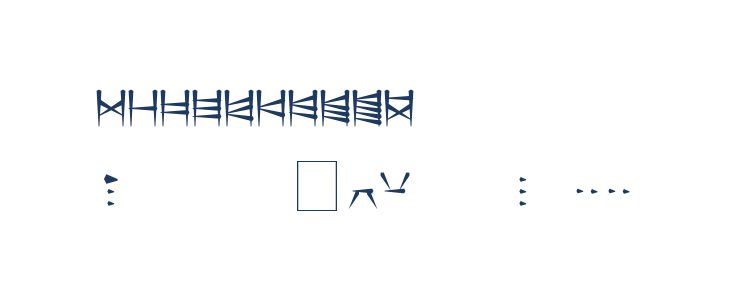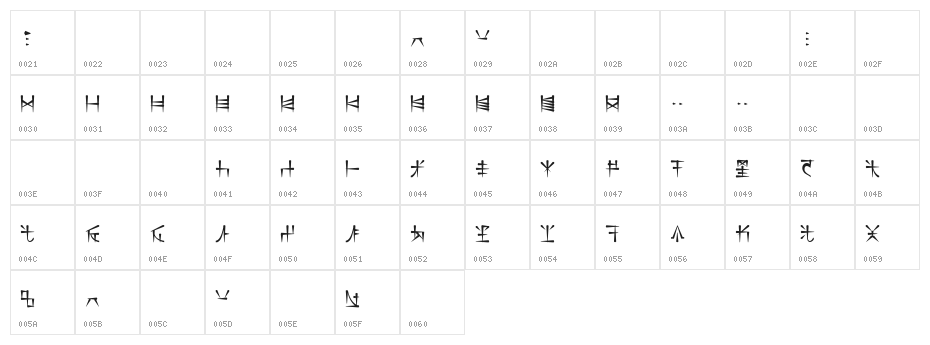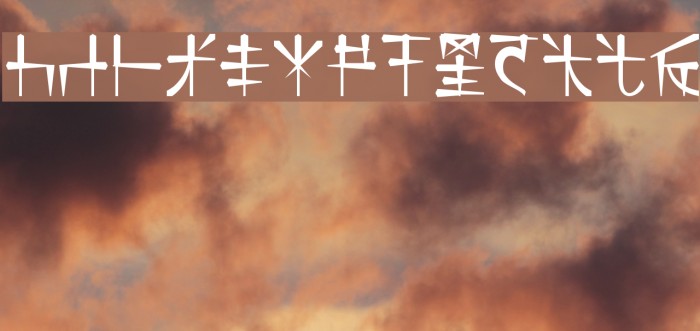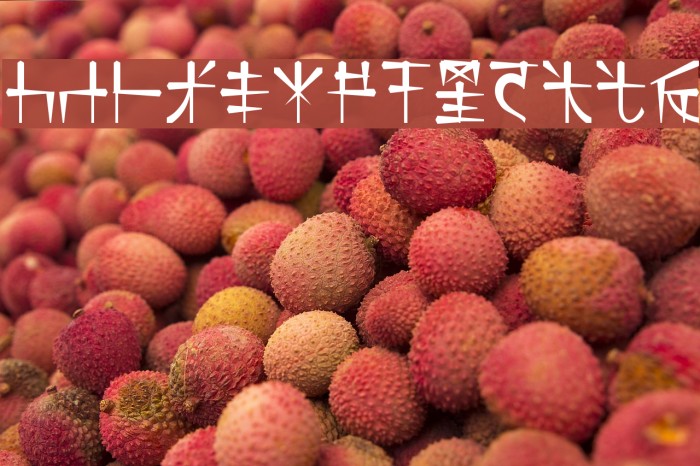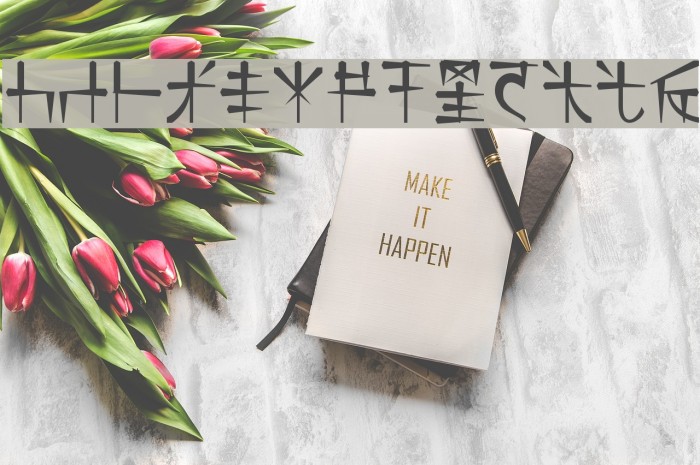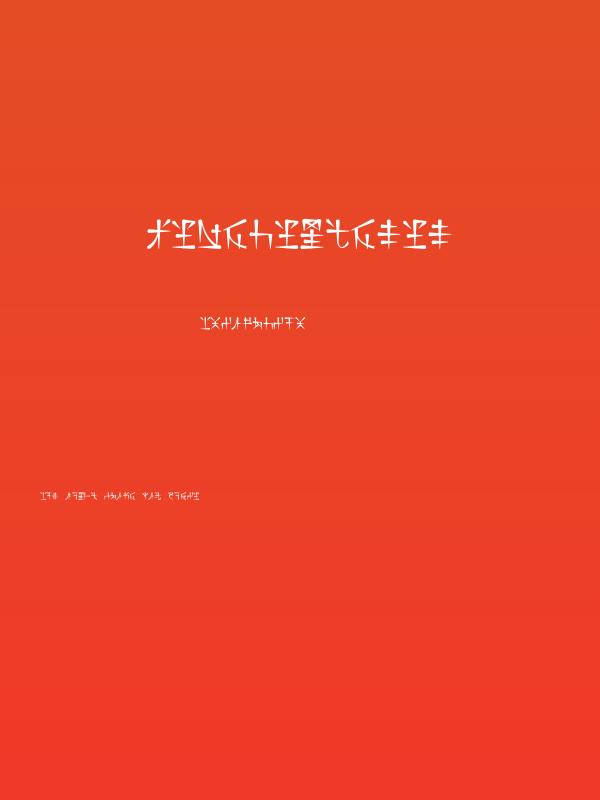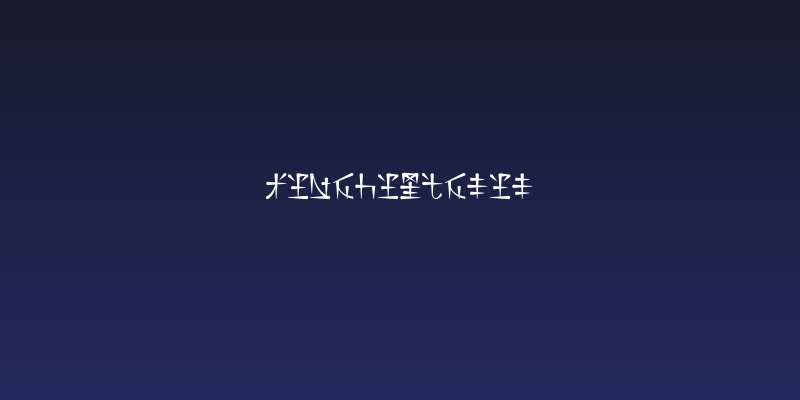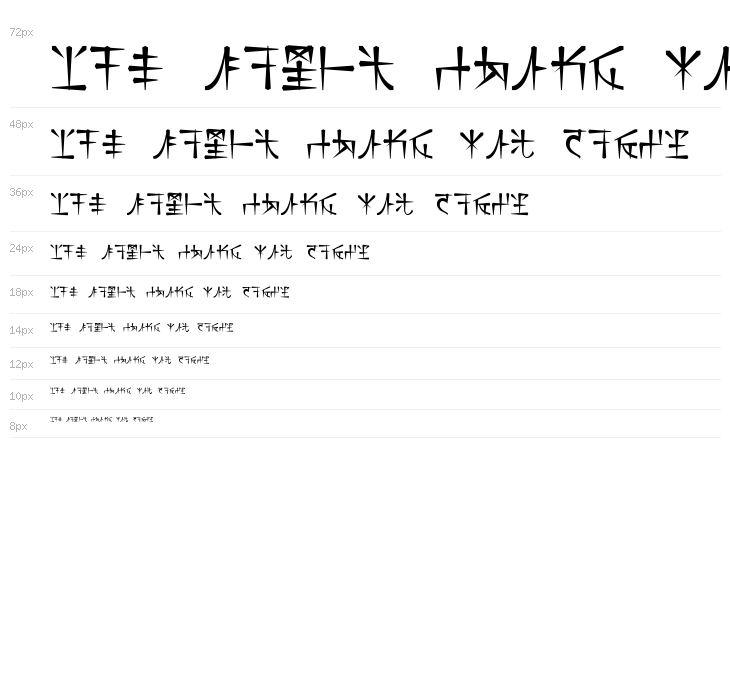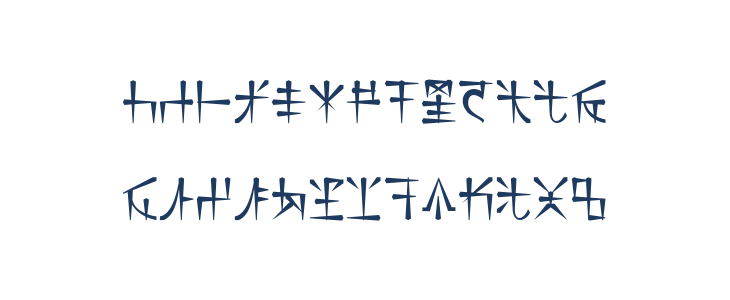
DS_Nasilnese Font
DS_Nasilnese Description
This font features a unique and abstract design, reminiscent of ancient scripts or symbolic writing. The characters are composed of sharp, angular lines with varying stroke thickness, creating a visually striking appearance. The overall look is geometric and somewhat cryptic, with each letterform appearing as a distinct symbol. The font lacks traditional letter shapes, instead offering a stylized and artistic interpretation that suggests a decorative or thematic use. Its unconventional style makes it suitable for creative projects that aim to evoke mystery or a sense of the archaic.
| Use Case | Logos, Posters, Thematic Designs |
| Proposed Projects | Ideal for fantasy-themed designs, game interfaces, or artistic projects requiring a mysterious or ancient aesthetic. |